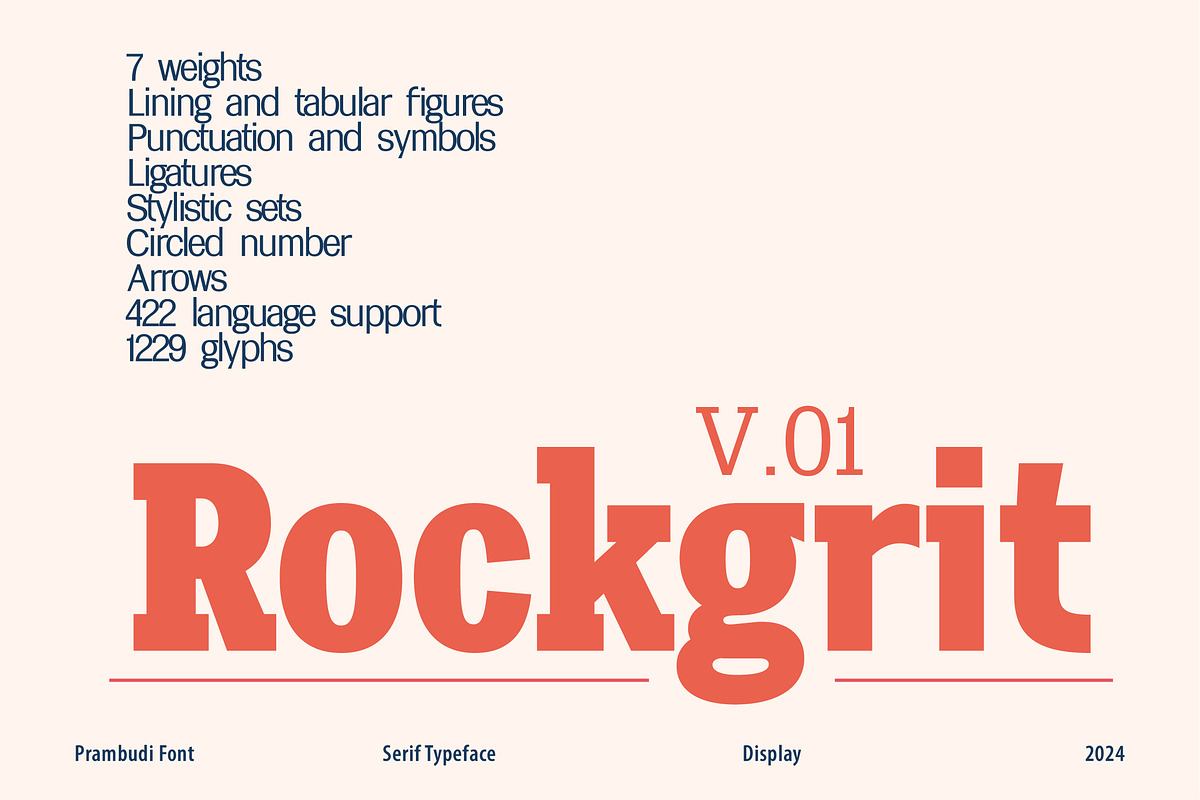
Rockgrit Half Slab (7 Fonts) Free Download is a rugged and versatile typeface family that blends the strength of slab serifs with a modern, industrial edge. Featuring seven font styles, this collection is ideal for logos, posters, outdoor branding, editorial layouts, sports design, and vintage-inspired merchandise. Each weight offers bold personality and high readability, giving you the flexibility to create striking visual hierarchies.
With its sturdy letterforms and gritty charm, Rockgrit is perfect for designs that demand both impact and style. Whether you're creating bold headlines or textured branding, this font family has the weight and character to carry your message.